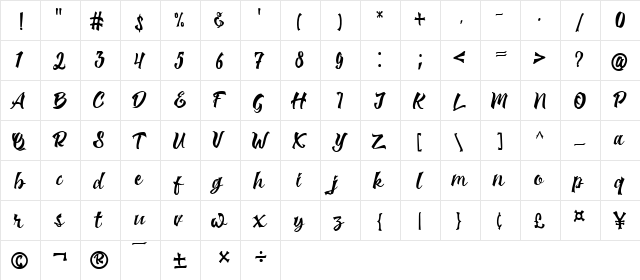
Monkerti Regular
| Foundry | ND studio |
| Designer | Faisal ND |
Design Context for Monkerti Typeface
Monkerti is a composed and adaptable typeface that performs quietly and consistently across a wide range of design contexts.